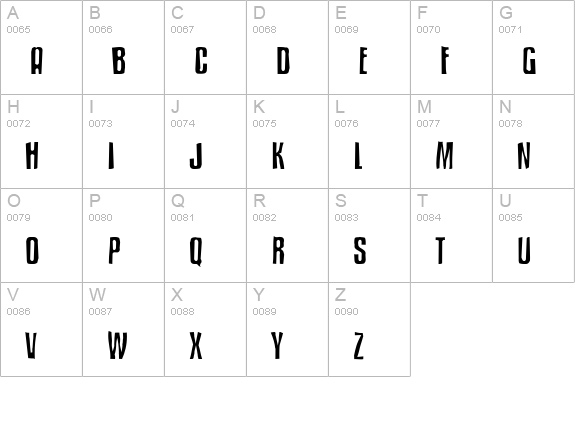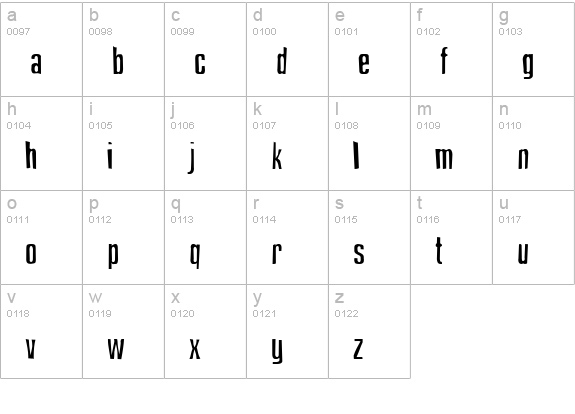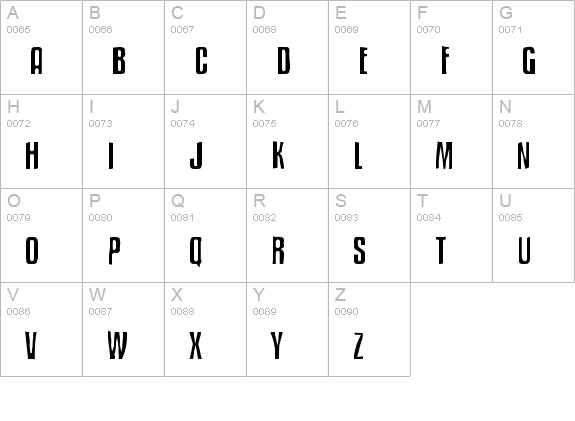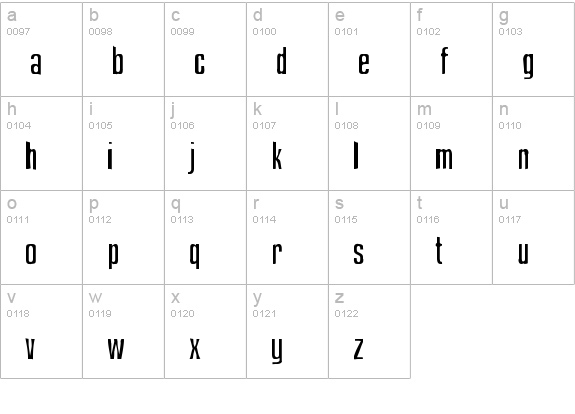
Kenyan Coffee Gaunt Font Details
Kenyan Coffee Gaunt font is a beautifully crafted typeface inspired by the rich coffee culture of Kenya. With its elegant and sophisticated design, this font exudes a sense of refinement and luxury. The sleek lines and intricate details of Kenyan Coffee Gaunt font make it perfect for adding a touch of class to any project. What sets Kenyan Coffee Gaunt font apart is that it is not only visually stunning but also free for anyone to use. You can easily download this exquisite font for free at FontsMarket.com. Whether you are working on a branding project, creating a logo, designing a website, or crafting invitations, Kenyan Coffee Gaunt font will elevate your work to the next level. Embrace the beauty and sophistication of Kenyan Coffee Gaunt font today and make your designs stand out from the rest.